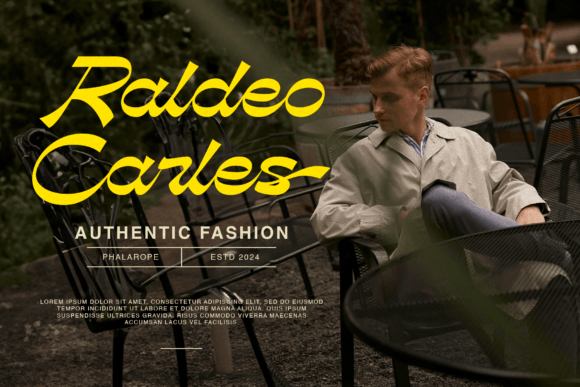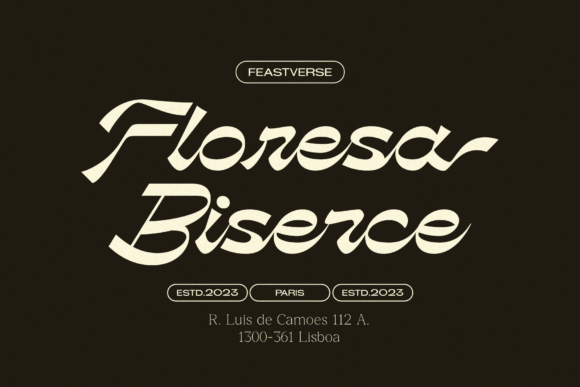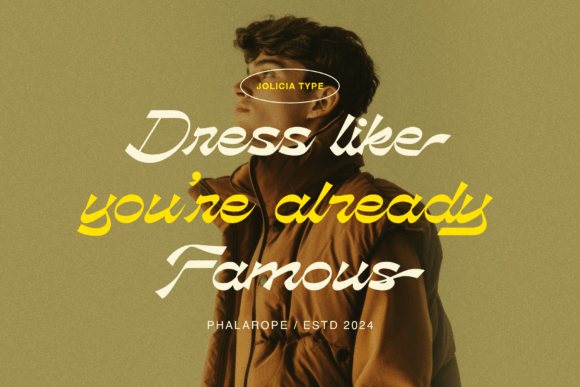
Introduction to Phalarope Font
Have you ever stared at a blank design canvas, unsure of where to start? The cursor blinks, taunting you with its emptiness. Suddenly, a spark of inspiration hits – a unique font that captures the essence of your creative vision. For designers seeking a high-quality design resource, the Phalarope Font stands out as a bold and elegant script typeface. Its flowing strokes and reversed weight dynamics create a striking contrast that’s sure to make your creative project shine.
Phalarope Font is more than just a design element – it’s a statement piece that adds a touch of sophistication to any design. With its transparent background and fluid curves, this script font is perfect for creating eye-catching headlines and branding that truly stand out. And the best part? You can download the Phalarope Font for free, making it an invaluable resource for designers of all levels.
Key Features of Phalarope Font
- High-quality design resource perfect for creative projects, including logos, branding, and digital art.
- Unique, modern design with a transparent background, allowing for versatile use in various design contexts.
- Includes a comprehensive set of glyphs, including uppercase and lowercase letters, numbers, and punctuation marks.
- Designed with a high resolution of 300 DPI, ensuring crisp and clear display on various screens and devices.
- Phalarope Font is ideal for designers looking for a modern, stylish font to elevate their creative projects.
Honest Review: Phalarope Font
As a designer, I’m always on the lookout for high-quality design resources that can elevate my creative projects. Recently, I came across the Phalarope Font, and I’m excited to share my honest review.
- ✨ Unique design aesthetic: The Phalarope Font has a distinct, modern feel that sets it apart from other fonts.
- ✨ High-quality glyphs: The font’s characters are well-designed and easy to read, making it perfect for body text or headlines.
- ⚠️ Limited font weights: While the font has a few weights, it would be nice to see more options to provide greater flexibility.
- ⚠️ No transparent background: Some designers might find it difficult to work with the font on transparent backgrounds, as it doesn’t quite pop.
Overall, I’m impressed with the Phalarope Font’s design and usability. While it may have some limitations, it’s a great addition to any designer’s toolkit. Whether you’re working on a personal project or a client’s creative endeavor, the Phalarope Font is definitely worth considering.
Tips for Getting the Most Out of Phalarope Font
Use the transparent background feature to create stunning graphics and designs. Experiment with different font sizes and colors to add depth and visual interest to your project.